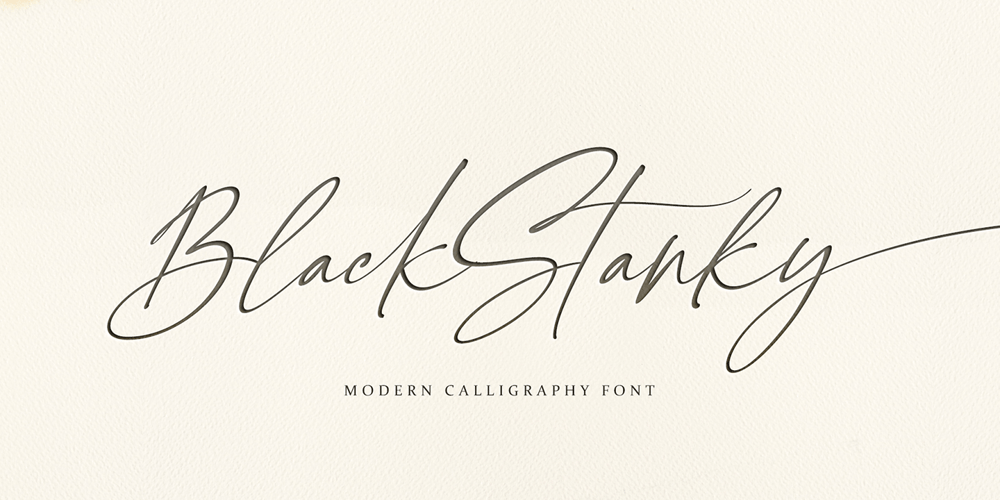
Black Stanky
Black Stanky font
Black Stanky Font Family was designed by Roiyani Teungku and published by Artisan Studio. Black Stanky contains 1 styles and family package options. Black Stanky a work that is purely a result of handwriting, has a natural characteristic. this is perfect for invitations, signatures, blogs, social media, business cards, product brands.Black Stanky has Stylistic standard, Stylistic Initial, Stylistic Teminal and ligatures. and includes uppercase and lowercase letters, numbers and punctuation marks.Accessed by using :OpenType smart programs such as Adobe Photo Shop, Adobe Illustrator, Adobe Indesign, Corel Draw and Microsoft Office. A Total of 362 Glyphs:Multilingual Support : ŠŒŸÐÀÁÂÃÄÅÆÇÈÉÊËÌÍÎÏÑÒÓÔÕÖØÙÚÛÜÝ àñáâåäãçæìíîïòóôõöøùúûüýÿèéê뢚ߞLigature accesed :St dd th gg pp ff wh mm of ck on we are all wr en ex ee ve oo ox ax ss so rr ot al tt ch ll rl ct ol rt at cl az4 alternative setst accesed : a b c d e f g h i j k l m n o p q r s t u v w x y zspecial greetings for all, all of us all smoothly in running the routinen